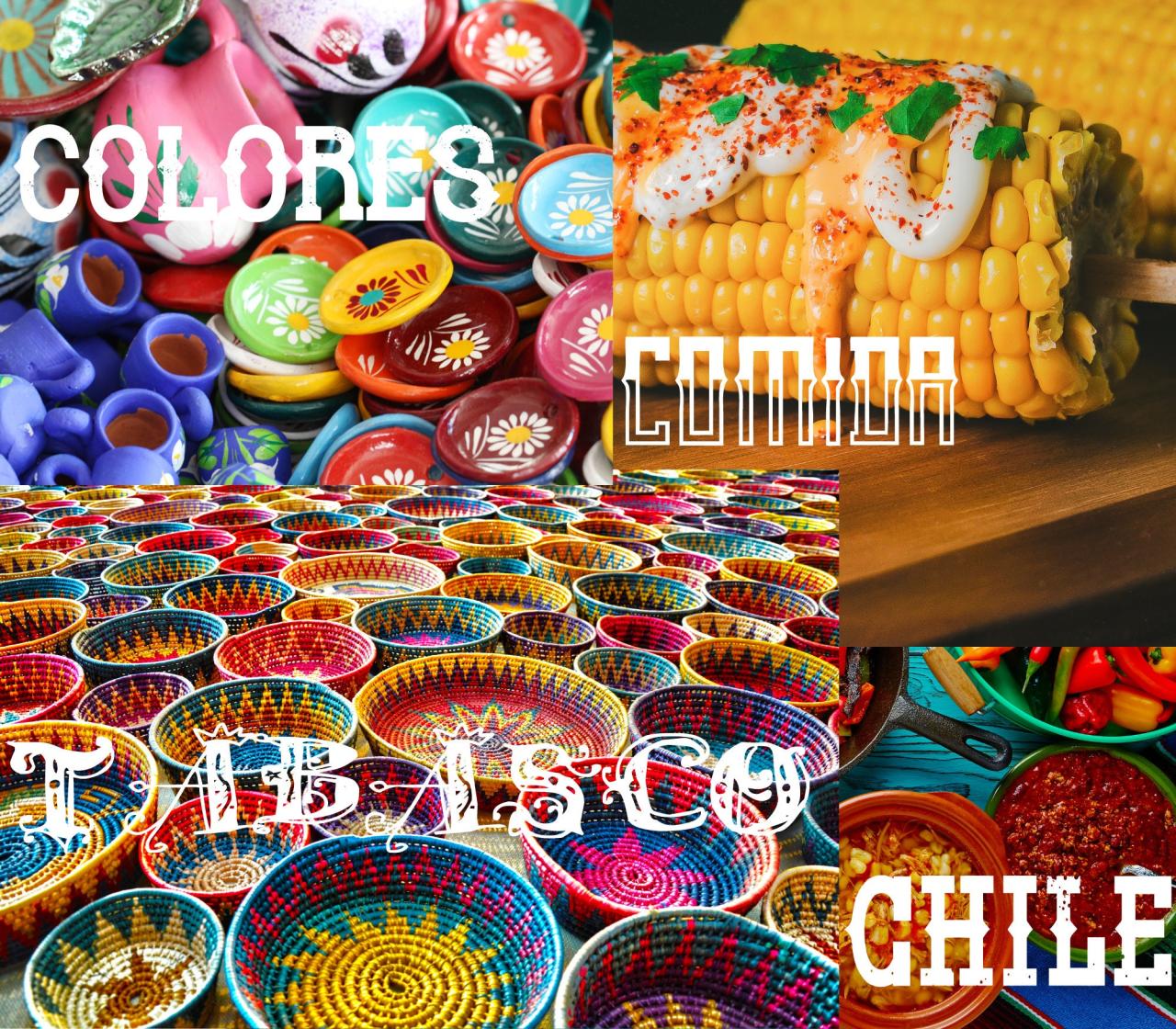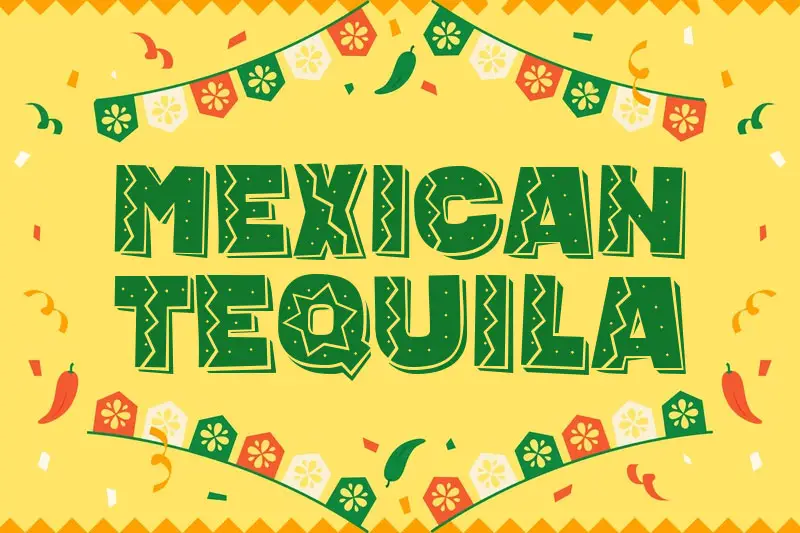
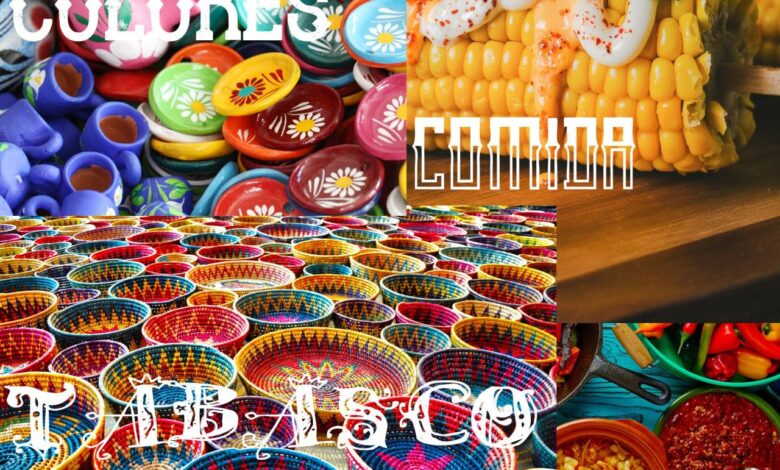
Best Mexican Style Fonts A Typographic Fiesta
Best Mexican Style Fonts: Dive into the vibrant world of typography inspired by Mexico’s rich culture! We’ll explore the unique visual characteristics that define “Mexican style” fonts, from the elegant flourishes reminiscent of traditional art to the bold strokes that capture the spirit of modern design. Get ready to discover fonts that perfectly blend history, artistry, and modern aesthetics, transforming your designs into a celebration of Mexican heritage.
This journey will take us through different font categories, showcasing their strengths and weaknesses in conveying a distinctly Mexican feel. We’ll analyze specific font examples, examining their historical context and design inspiration, and discuss their ideal applications. We’ll even explore how font choice can dramatically alter the mood and message of your designs, whether it’s a website, logo, or poster.
Prepare to be inspired!
Defining “Mexican Style” in Typography
Defining a “Mexican style” in typography is a fascinating challenge, as it’s not a rigidly defined aesthetic like, say, Bauhaus. Instead, it draws inspiration from the rich cultural tapestry of Mexico, incorporating diverse influences and interpretations. The resulting fonts often reflect a blend of indigenous traditions, colonial history, and modern design sensibilities.
Visually, Mexican-style fonts frequently exhibit a warm, expressive quality. They often feature strong serifs, sometimes highly decorative, echoing the ornate details found in Mexican architecture and art. Flourishes and swashes, reminiscent of calligraphy and hand-painted lettering, are also common, adding a sense of movement and dynamism. Certain letterforms, particularly those with flowing curves, can evoke the organic shapes found in nature, mirroring the country’s vibrant landscapes.
The overall feeling is one of handcrafted artistry and celebratory exuberance.
Key Design Elements of Mexican Style Fonts, Best mexican style fonts
The key design elements that contribute to a Mexican aesthetic in typography are multifaceted and interlinked. Bold serifs, often with a slightly irregular or handcrafted appearance, provide a sense of solidity and tradition. These are not the rigidly geometric serifs of classical Roman types but often possess a more playful, almost whimsical character. Intricate flourishes and swashes, particularly at the ends of letters and words, add a touch of elegance and drama.
Think of the embellishments on traditional Mexican textiles or the decorative elements of Baroque architecture. The use of specific letterforms, like a uniquely styled “G” or “R,” can also subtly contribute to the overall Mexican feel, hinting at the rich diversity of regional styles. Finally, the color palette associated with these fonts often complements the design, leaning towards warm earth tones, vibrant reds, and deep blues, reflecting the colors prevalent in Mexican art and culture.
Interpretations of “Mexican Style” in Typography
Different designers interpret the “Mexican style” in diverse ways, reflecting the broad spectrum of Mexican culture. Some fonts lean heavily on the pre-Hispanic aesthetic, incorporating geometric patterns and glyphs reminiscent of ancient Mayan or Aztec art. Others draw inspiration from the colonial period, incorporating the elegance and flourish of Baroque typography. Still others blend these historical influences with contemporary design trends, resulting in fonts that are both traditional and modern.
This diversity underscores the richness and complexity of Mexican visual culture and allows for a wide range of creative interpretations.
Examples of Fonts that Capture a Mexican Aesthetic
While specific font names are difficult to definitively label as purely “Mexican style” due to the lack of a standardized definition, certain fonts successfully evoke the aesthetic. Imagine a font with broad, slightly uneven serifs, incorporating elements reminiscent of traditional woodblock printing, and accented with subtle flourishes. The overall effect would be rustic, yet elegant, echoing the feel of hand-painted signage found in many Mexican towns and villages.
Another example might be a font with a more playful, almost cartoonish quality, but with underlying structure that hints at the historical forms, evoking the bright, celebratory nature of Mexican festivals and traditions. The success of these fonts lies not in mimicking specific historical styles but in capturing the spirit and feeling of Mexican culture through their visual characteristics.